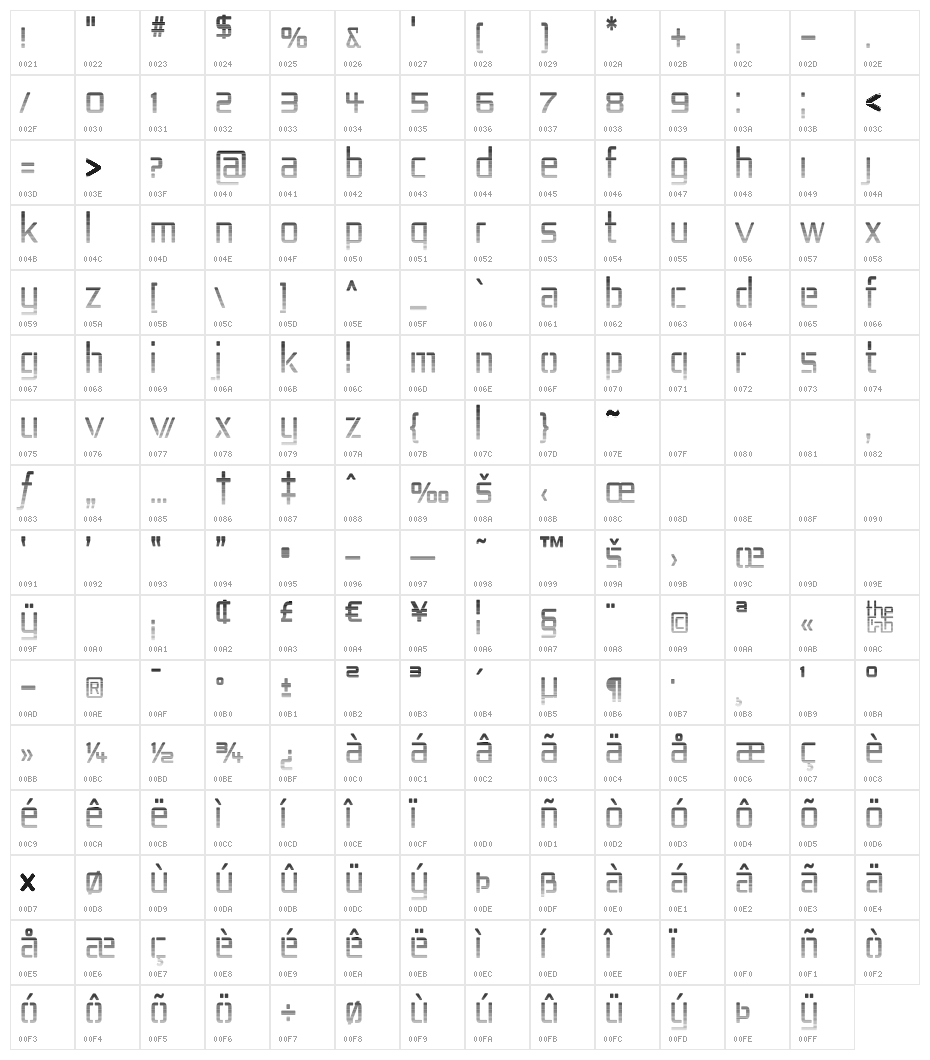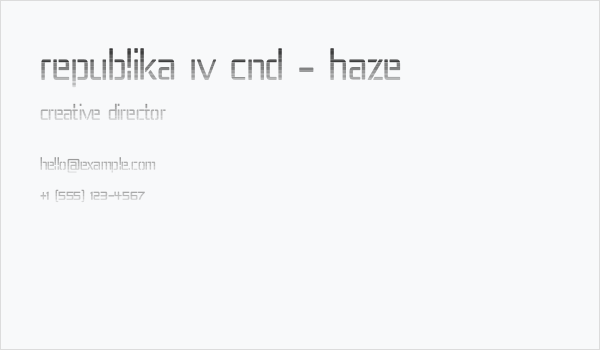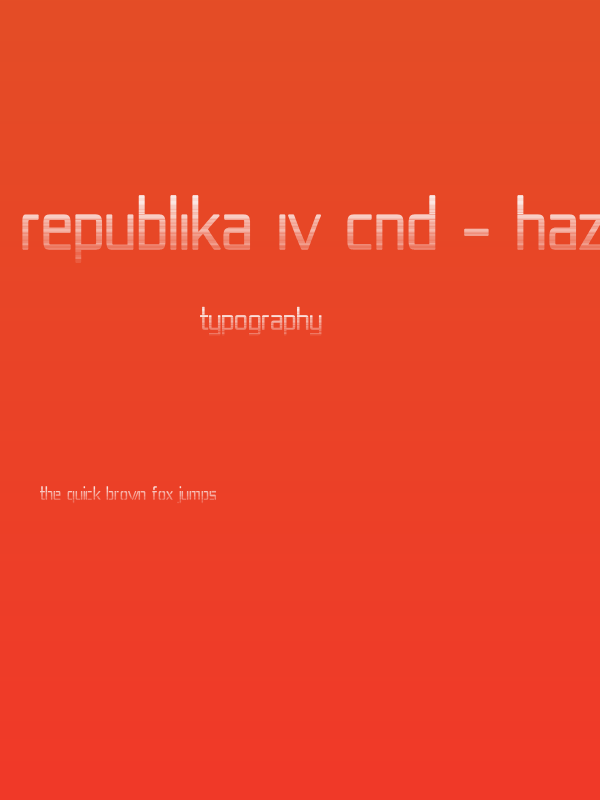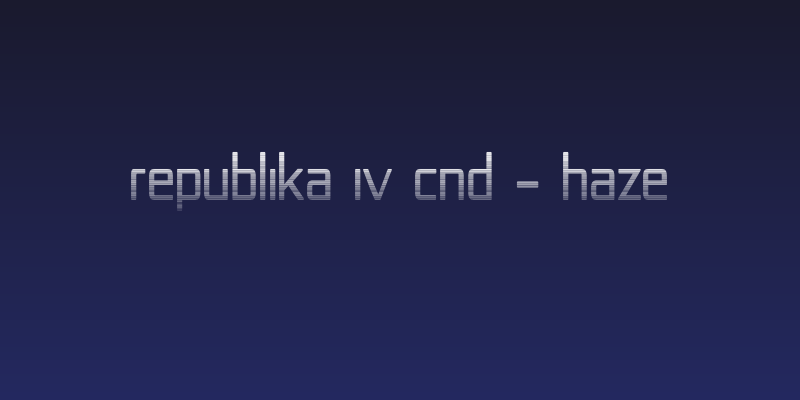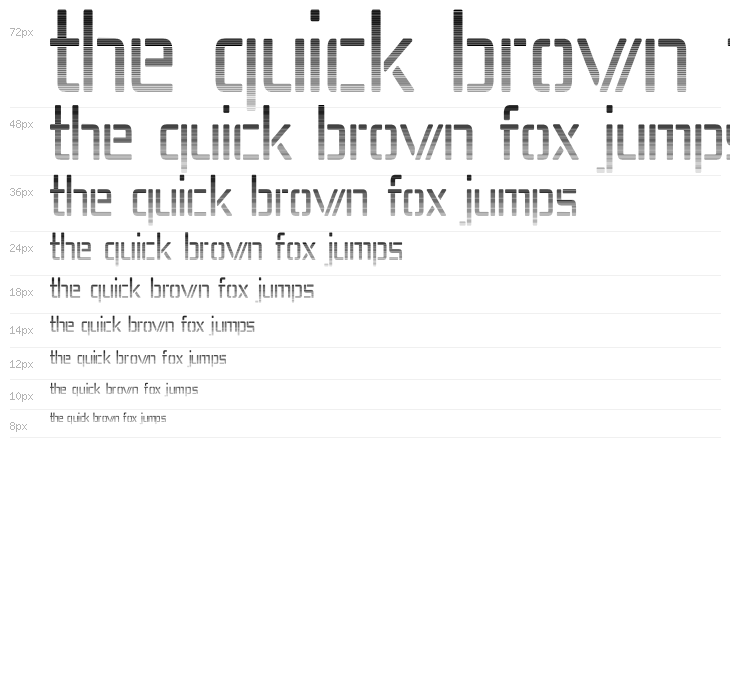
Republika IV Cnd - Haze Font
Republika IV Cnd - Haze Description
This font features a modern, geometric design with a condensed structure, giving it a sleek and futuristic appearance. The characters are constructed with uniform stroke widths, contributing to a clean and minimalistic aesthetic. The uppercase and lowercase letters maintain a consistent height, enhancing readability and creating a cohesive look. The numerals and special characters are designed to match the overall style, ensuring versatility across different applications. The font's distinct style makes it suitable for contemporary design projects.
| Use Case | Headlines, Logos, Digital interfaces |
| Proposed Projects | Ideal for technology branding, digital interfaces, modern posters, and futuristic design themes. |